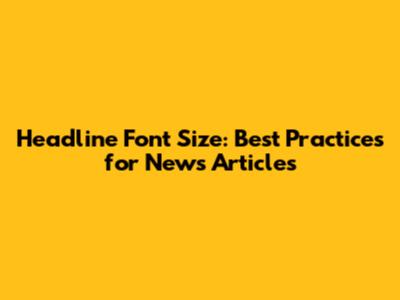
Headline Font Size: Best Practices For News Articles
Headline Font Size: Best Practices for News Articles
Hey guys! Ever wondered about the perfect font size for news headlines? It's a crucial element in grabbing your reader's attention and making your content easily digestible. Let's dive into the world of headline typography and explore the best practices for creating killer headlines that draw readers in.
Why Font Size Matters for Headlines
So, why is font size such a big deal when it comes to headlines? Think about it – headlines are the first thing people see. They're the gateway to your article, the hook that either reels readers in or sends them scrolling past. A well-chosen font size ensures readability, establishes visual hierarchy, and reflects the importance of the story. Imagine a tiny headline trying to convey a major breaking news event – it just wouldn't cut it, right? On the flip side, an overly large and clunky headline can feel overwhelming and unprofessional. Finding that sweet spot is key. A good font size for headlines should be large enough to stand out from the body text but not so large that it dominates the page or looks disproportionate. It's about striking a balance that creates visual appeal and ensures the headline effectively communicates the article's main point. The right font size also plays a crucial role in creating a clear visual hierarchy. Headlines are meant to be the most prominent text on the page, signaling the start of a new article or section. Using a larger font size for headlines than for subheadings and body text immediately tells the reader what's most important. This helps them quickly scan the page and decide which articles are of interest to them. In the digital age, where attention spans are shorter than ever, this visual hierarchy is more critical than ever. When choosing a font size, you should also consider the overall design of your website or publication. The font size should complement the other elements on the page, such as the logo, navigation menu, and images. A harmonious design creates a more professional and engaging reading experience, ultimately encouraging readers to stick around and consume your content. Additionally, the type of font you choose can impact how large it appears. Some fonts, due to their design and weight, might appear larger or smaller than others at the same point size. Therefore, it's essential to experiment with different fonts and sizes to see what works best for your specific design and content. Don't be afraid to try different combinations until you find the perfect balance that makes your headlines pop while maintaining readability and visual harmony.
General Guidelines for Headline Font Size
Okay, so what are some general guidelines we can follow? While there's no one-size-fits-all answer, there are some helpful rules of thumb. For print media, a headline font size of 18 to 36 points is a common range. For online articles, headlines typically range from 24 to 48 pixels. These are just starting points, of course. The ideal size will depend on factors like the font itself, the overall design of the page, and the importance of the story. Think of these ranges as your sandbox – the space where you can experiment and find what truly sings for your publication.
When we talk about print media, think newspapers, magazines, and brochures. In these formats, the physical constraints of the page often dictate the font size choices. A broadsheet newspaper, for instance, might have more room for larger headlines than a smaller magazine layout. The 18 to 36 point range allows for clear differentiation between headlines and body text, ensuring that headlines stand out without overwhelming the reader. The complexity of the layout also plays a role. A page with lots of images and graphical elements might need headlines that are on the larger side to maintain their presence. Conversely, a text-heavy page might benefit from slightly smaller headlines to avoid a cluttered appearance. Remember, the goal is to guide the reader's eye and make the information easily accessible.
In the digital world, things get a bit more flexible, but the core principles remain the same. The 24 to 48 pixel range for online headlines is a solid starting point, but the responsiveness of web design adds another layer to the equation. A headline that looks perfect on a desktop monitor might appear too large or too small on a mobile device. This is where responsive typography comes into play. Techniques like using relative units (such as ems or rems) and media queries allow you to adjust font sizes based on screen size, ensuring a consistent reading experience across all devices. For example, a headline set at 36 pixels might automatically scale down to 24 pixels on a smartphone screen. This flexibility is crucial for reaching a wide audience and keeping them engaged, no matter how they access your content. Also, consider the website's overall aesthetic. The font size should harmonize with the site's color scheme, imagery, and other design elements. A modern, minimalist website might call for cleaner, more streamlined headlines, while a more traditional site might benefit from bolder, more impactful fonts. The key is to create a visual hierarchy that makes sense within the overall context of the website.
Factors Influencing Headline Font Size
Several factors come into play when determining the perfect font size for your headlines. Let's break them down:
• Font Choice: Different fonts have different visual weights. A bold font will appear larger than a lighter font at the same point size. Experiment with different fonts to see how they look at various sizes. Some fonts are naturally more commanding, with thick strokes and strong letterforms, while others are more delicate and refined. A font like Impact, for example, will appear much larger and bolder than a font like Arial at the same size. This is because Impact is designed to be a display font, intended for headlines and other prominent text elements, while Arial is a more versatile font suitable for both headlines and body text. When you're selecting a font for your headlines, think about the message you want to convey. Do you want your headlines to shout, or do you want them to speak with a more sophisticated tone? Your font choice should align with your overall brand and the nature of your content.
• Website Design: The overall layout and design of your website will influence the ideal headline size. A clean, minimalist design might call for larger headlines to create visual impact, while a busy website might require smaller headlines to avoid clutter. The key is to consider the visual hierarchy of your website. Headlines should be the most prominent text element on the page, but they shouldn't overshadow the other content. The spacing around your headlines, the use of images and graphics, and the overall color scheme will all affect how the headlines appear. A well-designed website uses these elements in harmony to create a balanced and engaging user experience. For instance, a website with a lot of white space can afford to have larger headlines, as the negative space will prevent them from feeling overwhelming. On the other hand, a website with a more compact layout might need to use smaller headlines and more strategic spacing to ensure readability.
• Mobile Responsiveness: Don't forget about mobile! Headlines need to be legible on smaller screens. Use responsive design techniques to adjust font sizes for different devices. As we discussed earlier, mobile responsiveness is crucial in today's digital landscape. With more and more people accessing the internet on their smartphones and tablets, your website needs to adapt to different screen sizes seamlessly. This means using techniques like relative font sizes (ems and rems) and media queries to ensure that your headlines look good on any device. A headline that's too large on a mobile screen can break the layout and make it difficult to read, while a headline that's too small will simply get lost. It's also important to consider the touch-friendliness of your headlines. Mobile users interact with websites using their fingers, so headlines need to be large enough to tap easily. A general rule of thumb is to make sure that your headlines have enough padding around them and that the clickable area is large enough for a finger tap. Testing your website on different mobile devices is essential to ensure that your headlines are both legible and user-friendly.
• Importance of the Story: A major breaking news story might warrant a larger, bolder headline than a less significant article. Consider the impact you want the headline to make. The size of your headline can communicate the importance of the story to the reader. A large, bold headline signals that the article is significant and timely, while a smaller headline might indicate a less urgent or less critical piece. Think about how newspapers use headline sizes to prioritize their stories on the front page. The biggest, most prominent headlines are reserved for the top news items, while smaller headlines are used for secondary stories. You can apply this same principle to your website or publication. Use larger headlines for your most important content and smaller headlines for less critical pieces. This will help your readers quickly scan the page and identify the stories that are most relevant to them. However, it's important to be consistent in your use of headline sizes. If you use excessively large headlines for every story, you'll dilute their impact and make it difficult for readers to distinguish between important and less important content.
Examples of Headline Font Sizes
Let's look at some real-world examples. Major news websites often use headline fonts ranging from 30 to 40 pixels for their top stories, while blog posts might use headlines in the 24 to 32 pixel range. Notice how the size conveys the importance and context of the content. Analyzing the headline font sizes on popular news websites and blogs can provide valuable insights into best practices. Major news websites, like the New York Times or CNN, often use a hierarchical approach, with their main headlines being the largest and most prominent, followed by subheadings and secondary headlines in smaller sizes. This creates a clear visual structure that guides the reader through the page and highlights the most important content. Blog posts, on the other hand, often use a more uniform approach to headline sizes, with a consistent size for all headlines and subheadings. This can create a cleaner, more streamlined look, but it's important to ensure that the headlines still stand out from the body text. When you're examining examples, pay attention to how the headline font size interacts with other design elements, such as the website's color scheme, typography, and imagery. A well-designed website uses these elements in harmony to create a cohesive and engaging user experience. For instance, a website with a minimalist design might use larger headlines and more white space to create a sense of visual impact, while a website with a more complex layout might use smaller headlines and more strategic spacing to avoid clutter. Also, consider the target audience of the website or publication. A website targeted at a younger audience might use bolder, more playful headline fonts, while a website targeted at a more professional audience might opt for more conservative and refined fonts.
Conclusion
Choosing the right font size for your news headlines is a balancing act. It's about creating visual impact while ensuring readability and maintaining a consistent design. By considering the factors we've discussed and experimenting with different options, you can craft headlines that not only grab attention but also enhance the overall reading experience. So go forth and create some killer headlines, guys! Remember, headlines are the gateway to your content, and a well-chosen font size can make all the difference in attracting and engaging your audience. Don't be afraid to experiment with different fonts and sizes to find the perfect balance for your website or publication. The key is to create a visual hierarchy that guides the reader through the page and highlights the most important content. And always keep in mind the mobile experience – your headlines need to look good and be easy to read on any device. By following these best practices, you can create headlines that not only grab attention but also help you achieve your content goals, whether it's driving traffic, increasing engagement, or simply informing your audience. Happy headline crafting!